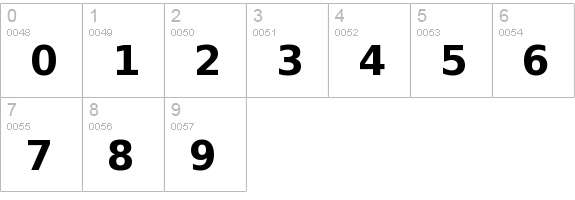
ae_AlMothnna Bold is a strong, high-contrast variant in the ae_AlMothnna typeface family \xE2\x80\x94 well suited to headlines, attention-grabbing titles, and strong calls-to-action.
ae_AlMothnna Bold is a striking and bold font that exudes power and confidence. Its clean lines and strong presence make it perfect for headlines, titles, and branding materials. The font's distinctive design sets it apart from the rest, making it a standout choice for any project that requires a bold statement. Whether you're creating posters, logos, or social media graphics, ae_AlMothnna Bold will command attention and leave a lasting impression. The best part? ae_AlMothnna Bold is available for free download at FontsMarket.com. This means you can easily access this premium font without any cost, making it a valuable addition to your design arsenal. Don't miss out on the opportunity to enhance your projects with the bold and impactful ae_AlMothnna Bold font - download it now and elevate your designs to the next level.